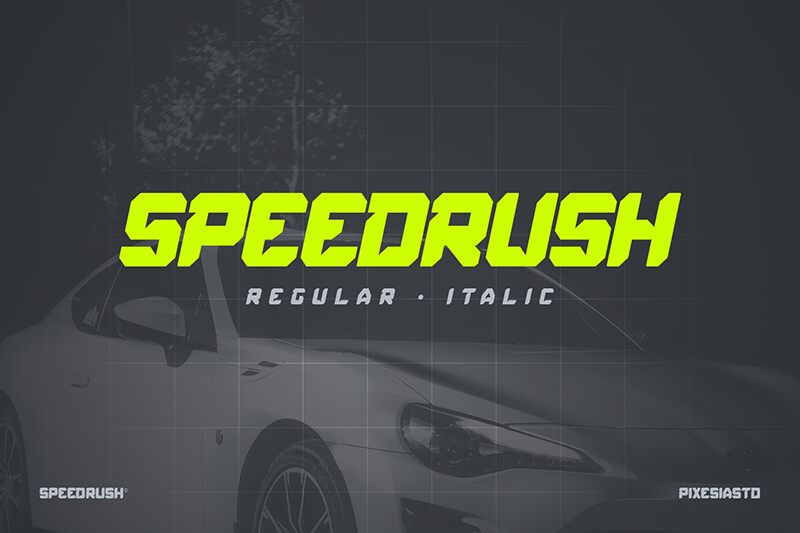
Speed Rush Italic font by Pixesia Studio is a display font combining bold weight, stylish sharpness, energetic slanting, and techno inspiration. The angular strokes give it a high-tech and aggressive look for audiences in need of excitement. All of these particulars factor into making the typeface futuristic, modern, effective at conveying energy, enthusiasm, etc. Characters are unique individually but even more when combined into beautifully arranged text written within large headlines.
Speed Rush Italic will support any racing-related activity whether as a sports visual or themed event design contribution. Use for both game branding in current projects or simply writing eye-catching typography as part of a logo design. Posters meant to attract engagement on events like car shows can become instantly exciting and energetic. Other possible use cases include merchandise prints on t-shirts for racing fans and dynamic social media content staking out new audiences familiar with the sport inspired by speed culture.